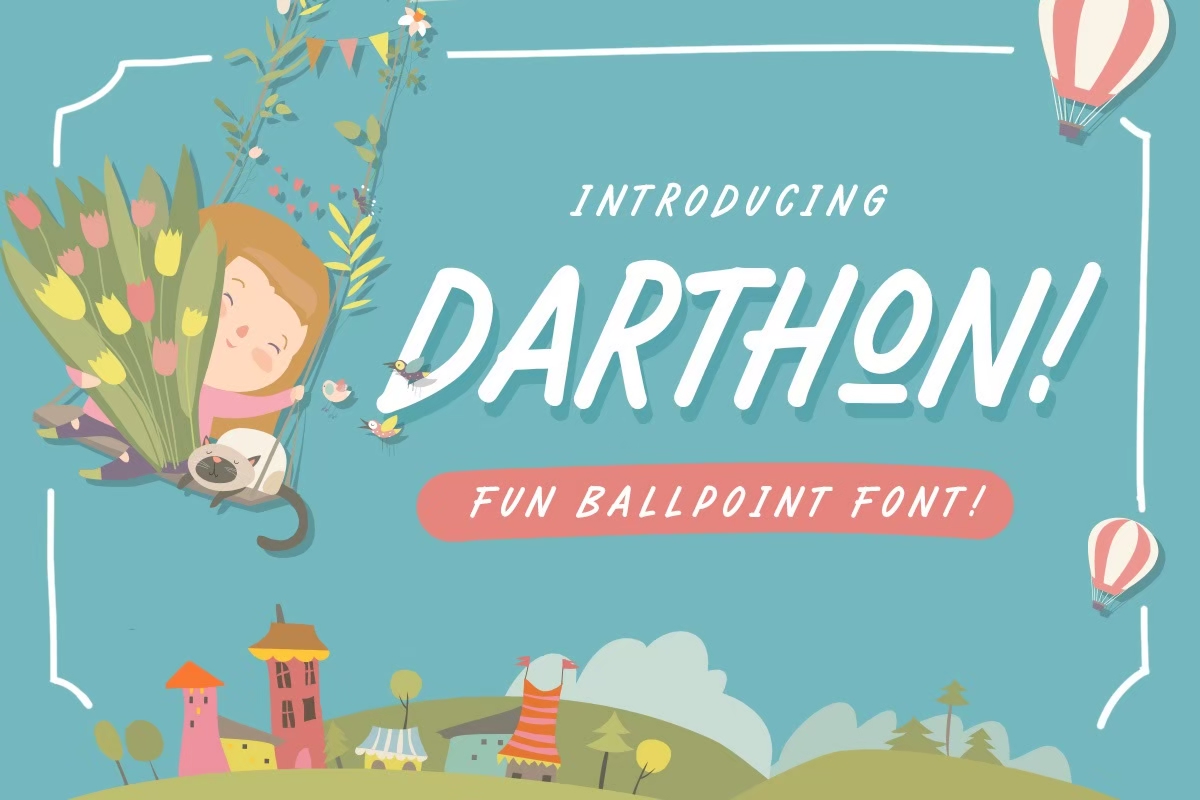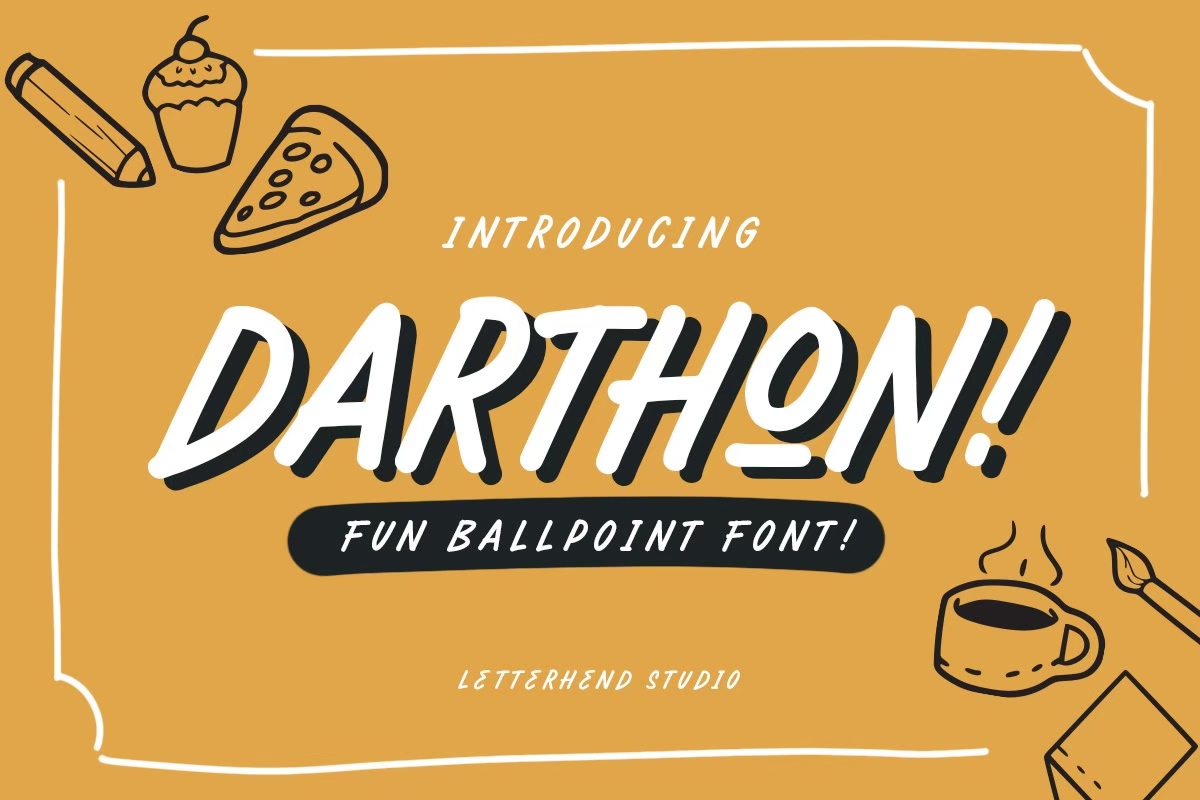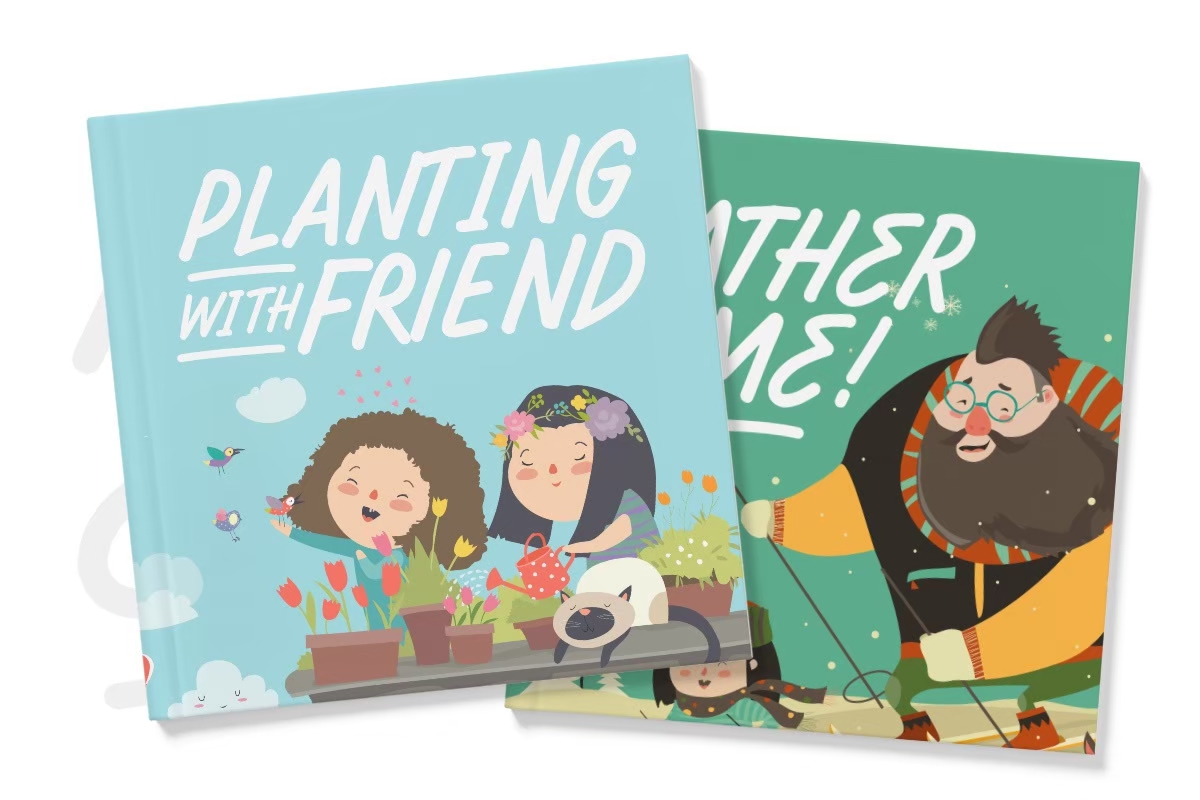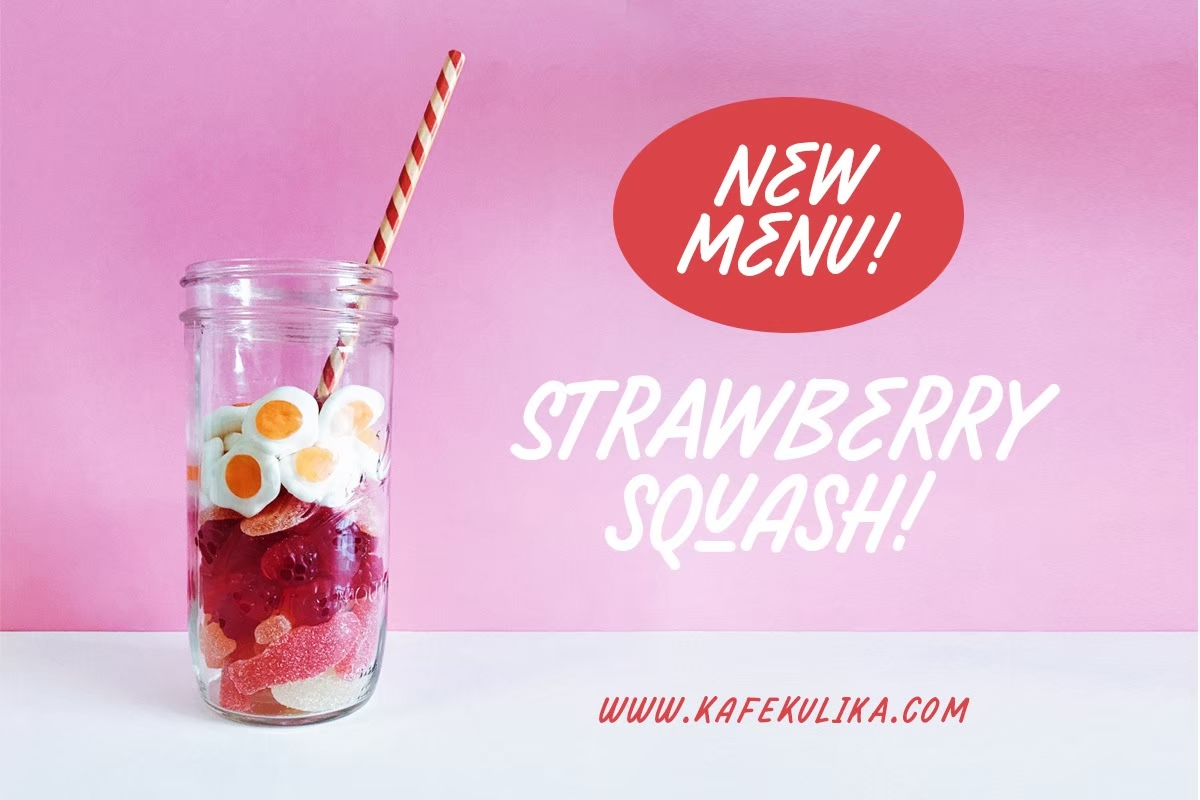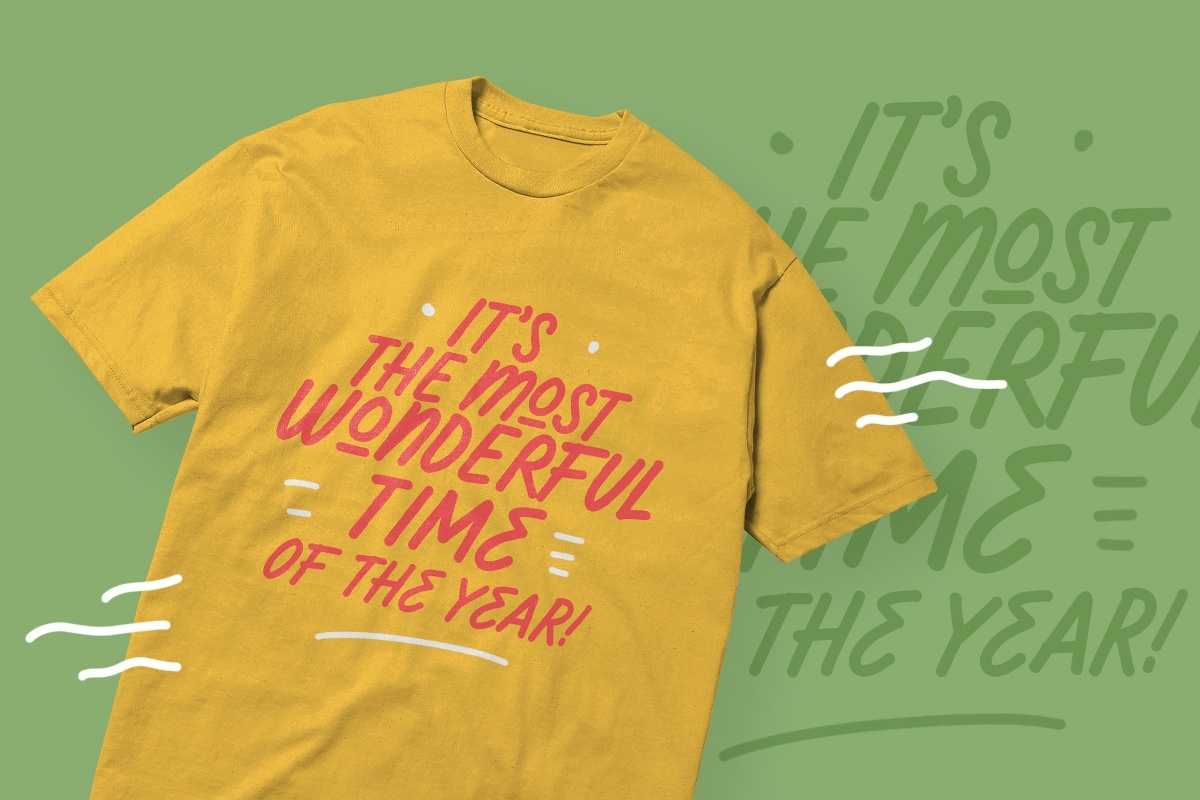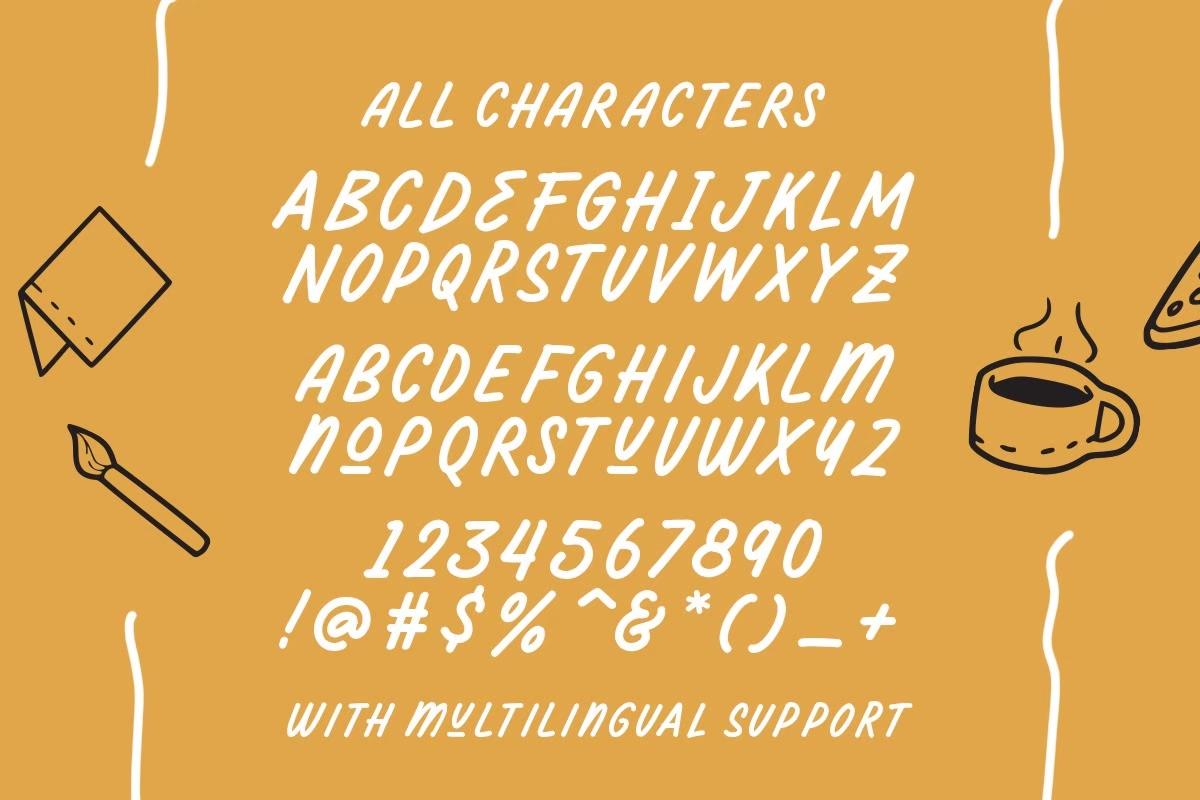
Darthon is a casual display font with stroke ballpoint-like style. This font perfectly made to be applied especially in logo, and the other various formal forms such as invitations, labels, logos, magazines, books, greeting / wedding cards, packaging, fashion, make up, stationery, novels, labels or any type of advertising purpose.
Features : - uppercase & lowercase - numbers and punctuation - multilingual - ligatures - alternates - PUA encoded